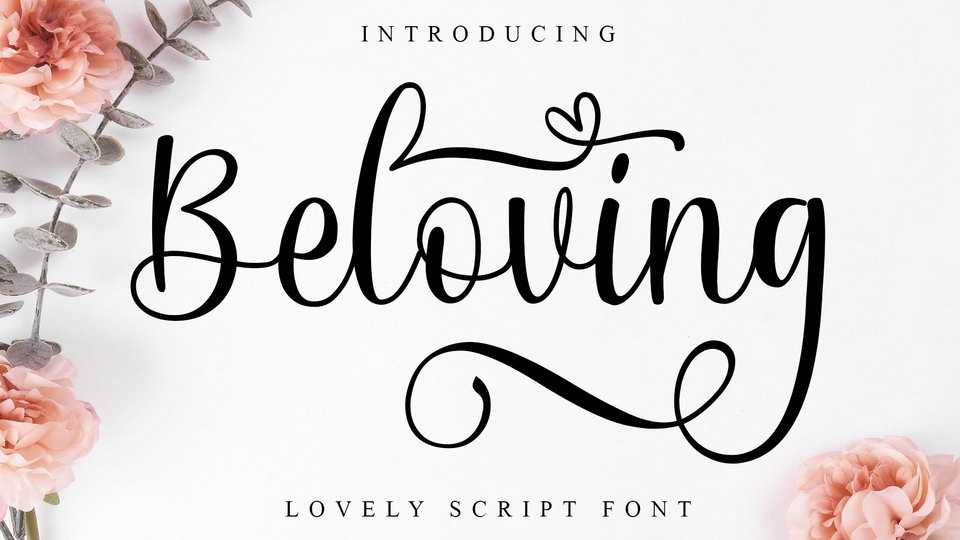
Download Beloving Script, a fun and charming handwritten font with a playful twist and unique style. Beloving font will turn any design idea into a true piece of art!
Designer: MJB Letters